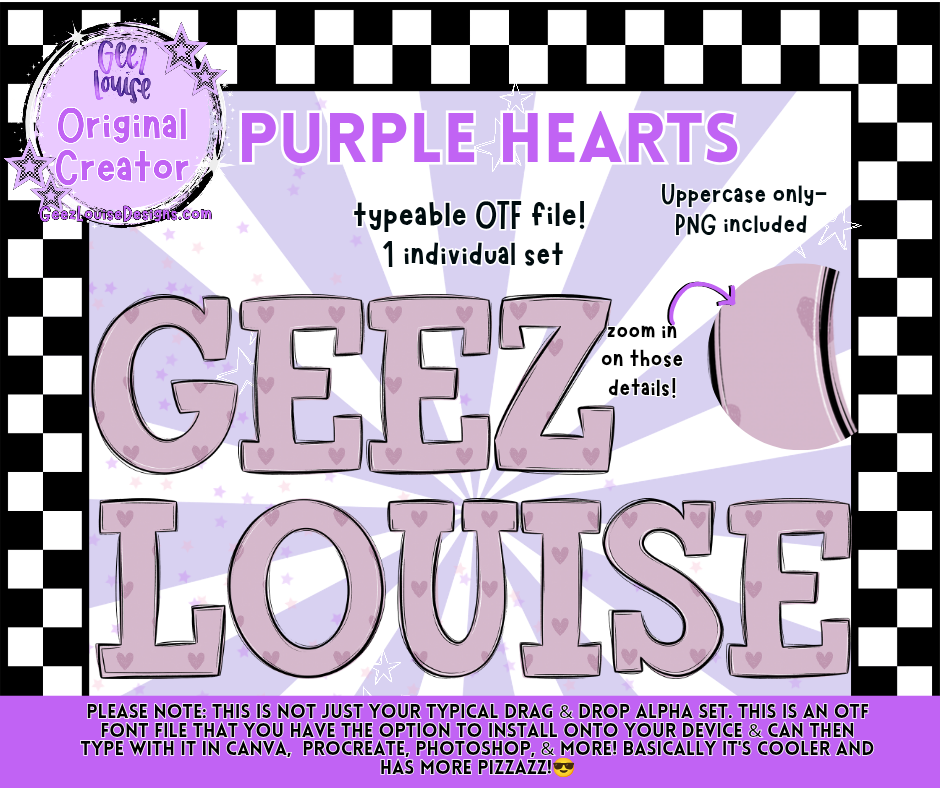
Mythic, moody, and made for skellies who still bloom—Purple Hearts is your boutique alpha for dreamy rebellion. This uppercase-only OTF font features a rich purple heart pattern with star accents, perfect for survivor-themed art, spooky merch, and emotionally honest branding.
Why it slaps: This alpha isn’t just decorative—it’s mythic. Installable, typeable, and emotionally resonant. Zoom in on those details… they’re blooming in the dark.